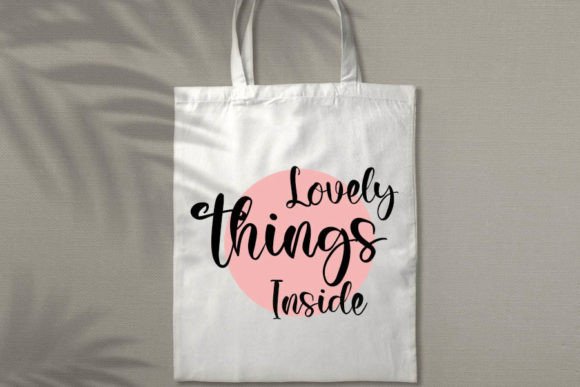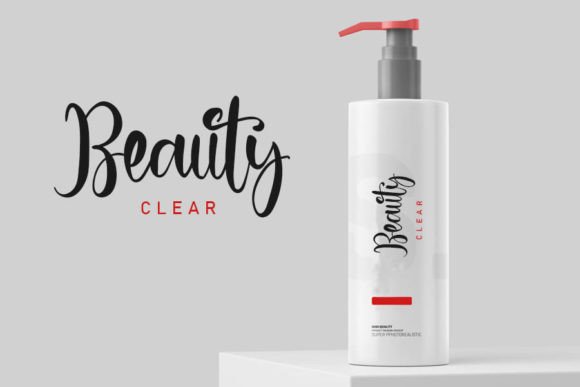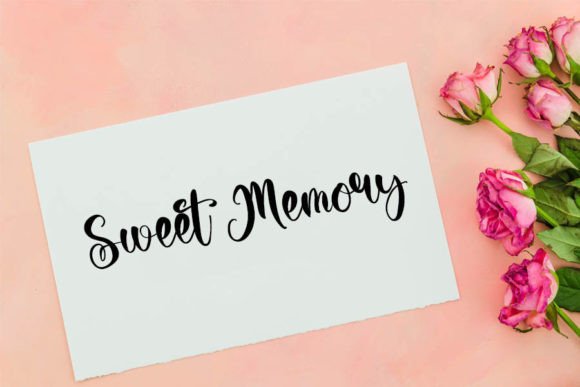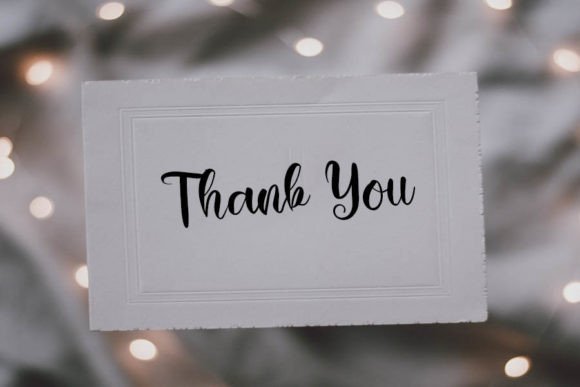
Discover the Timeless Charm of Classic Vintage Font
Are you a designer or crafter looking for a font that exudes elegance and sophistication? Look no further than Classic Vintage Font, a lovely and timeless handwritten font that is sure to elevate your designs to the next level. In this article, we’ll explore the unique features of Classic Vintage Font and why it’s the perfect choice for creating eye-catching logos, branding, and quotes.
Handwritten fonts have a way of adding a personal touch to any design. They evoke a sense of warmth, authenticity, and uniqueness that is hard to replicate with digital fonts. Classic Vintage Font is a beautiful example of a handwritten font that has been crafted with love and care to bring a touch of timeless charm to your designs.
What Makes Classic Vintage Font Special?
So, what sets Classic Vintage Font apart from other fonts? Here are just a few of its unique features:
• Unique Letterforms: Every letter in Classic Vintage Font has a unique and beautiful touch that will make your design stand out. From the elegant swashes to the delicate flourishes, each letter has been carefully crafted to add a touch of personality to your design.
• Timeless Appeal: Classic Vintage Font has a timeless quality that will never go out of style. Its classic design ensures that it will remain relevant for years to come, making it a great investment for designers and crafters.
• Versatility: Classic Vintage Font is incredibly versatile and can be used for a wide range of design projects, from logos and branding to quotes and social media graphics.
Uses for Classic Vintage Font
So, what can you use Classic Vintage Font for? Here are just a few ideas to get you started:
• Logos and Branding: Create a lasting impression with a custom logo that incorporates Classic Vintage Font. Its unique letterforms and timeless appeal make it perfect for businesses that want to stand out from the crowd.
• Quotes and Social Media Graphics: Add a touch of elegance to your quotes and social media graphics with Classic Vintage Font. Its beautiful swashes and flourishes will make your designs pop.
• Stationery and Invitations: Create beautiful stationery and invitations with Classic Vintage Font. Its classic design ensures that your designs will be treasured for years to come.
Tips for Using Classic Vintage Font
Here are a few tips for getting the most out of Classic Vintage Font:
• Experiment with Colors: Classic Vintage Font looks great in a range of colors, from bold and bright to soft and pastel. Experiment with different colors to find the perfect combination for your design.
• Play with Swashes and Flourishes: Classic Vintage Font has a range of beautiful swashes and flourishes that can add a touch of elegance to your design. Experiment with different swashes and flourishes to find the perfect look for your project.
• Mix and Match with Other Fonts: Classic Vintage Font pairs beautifully with other fonts. Experiment with mixing and matching it with other fonts to create a unique and eye-catching design.
Font Name Classic Vintage Font
Author Snowman Studio
Classic Vintage Font is a timeless and elegant handwritten font that is perfect for designers and crafters looking to add a touch of sophistication to their designs. With its unique letterforms, timeless appeal, and versatility, it’s the perfect choice for creating eye-catching logos, branding, and quotes. Whether you’re a seasoned designer or just starting out, Classic Vintage Font is sure to become a favorite in your font collection.
Get Creative with Classic Vintage Font